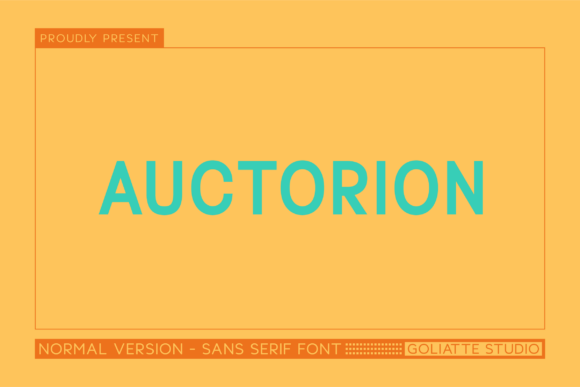
The Auctorion Font: A Modern Design Essential
I’ll never forget the design project that led me to discover the Auctorion font. I was working on a branding campaign for a trendy new coffee shop, and I was struggling to find the perfect font to capture their modern, yet approachable vibe. The client wanted something clean, elegant, and highly legible across various platforms – from signage to digital menus. After hours of scouring font libraries, I stumbled upon Auctorion, and it was love at first sight! ✨
An Honest Review of Auctorion
• ✅ Clean Minimalism: Auctorion’s sleek, geometric design makes it perfect for contemporary projects.
• ✅ Balanced Letterforms: The font’s consistent stroke weights and balanced letterforms give it a crisp, professional look.
• ✅ Versatility: Auctorion transitions effortlessly from bold headlines to subtle text elements.
• ✅ Readability: The font’s streamlined appearance ensures high legibility, even at small sizes.
While Auctorion is an excellent font, it’s not without its quirks. ⚠️ Some users may find that the font’s geometric design can make it feel a bit cold or impersonal. Additionally, Auctorion’s minimalist approach means it may not be the best choice for projects requiring a high level of ornamentation or flair. 🤔
The Designer Inspiration Behind Auctorion
Auctorion was designed with the modern designer in mind. Its creator sought to craft a font that would blend clean minimalism with modern elegance, making it perfect for a wide range of design applications. The designer’s goal was to create a font that would exude confidence and readability, while also providing a versatile tool for creative professionals. 💡
Author Goliatte Studio
What makes Auctorion suitable for digital interfaces? Auctorion’s clean design, balanced letterforms, and high legibility make it an excellent choice for digital interfaces, such as websites, apps, and social media graphics.
Can I use Auctorion for print projects? Absolutely! Auctorion’s versatility makes it suitable for a wide range of print projects, from business cards to billboards.